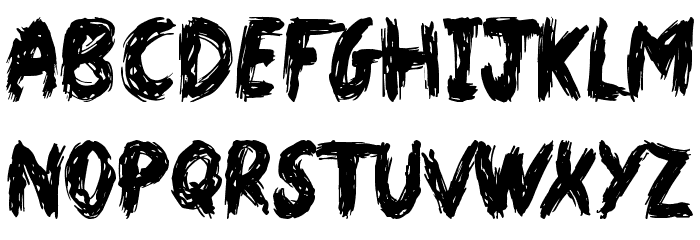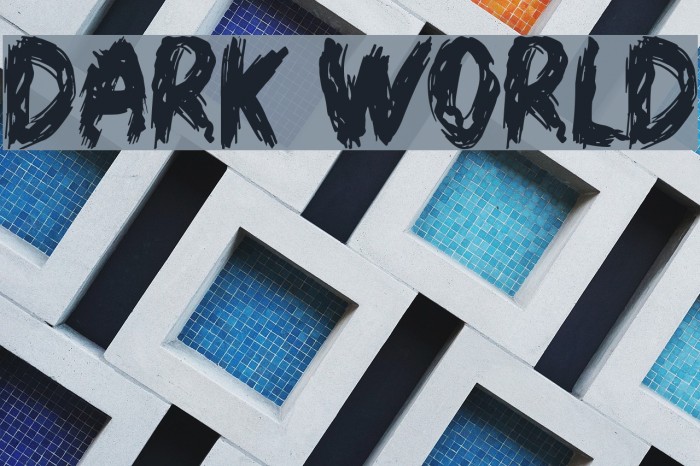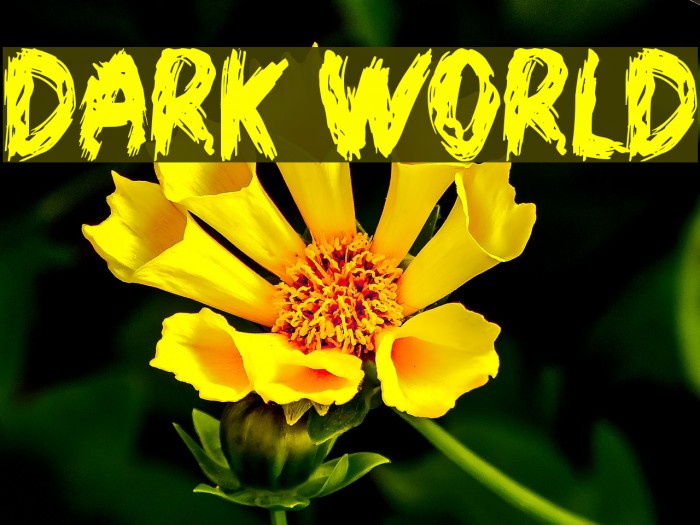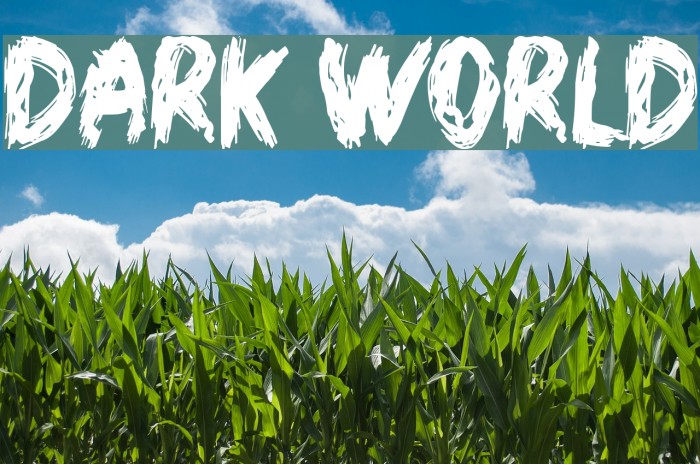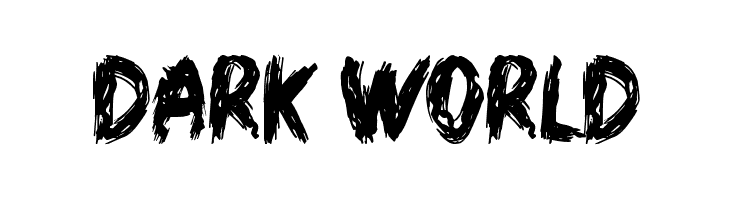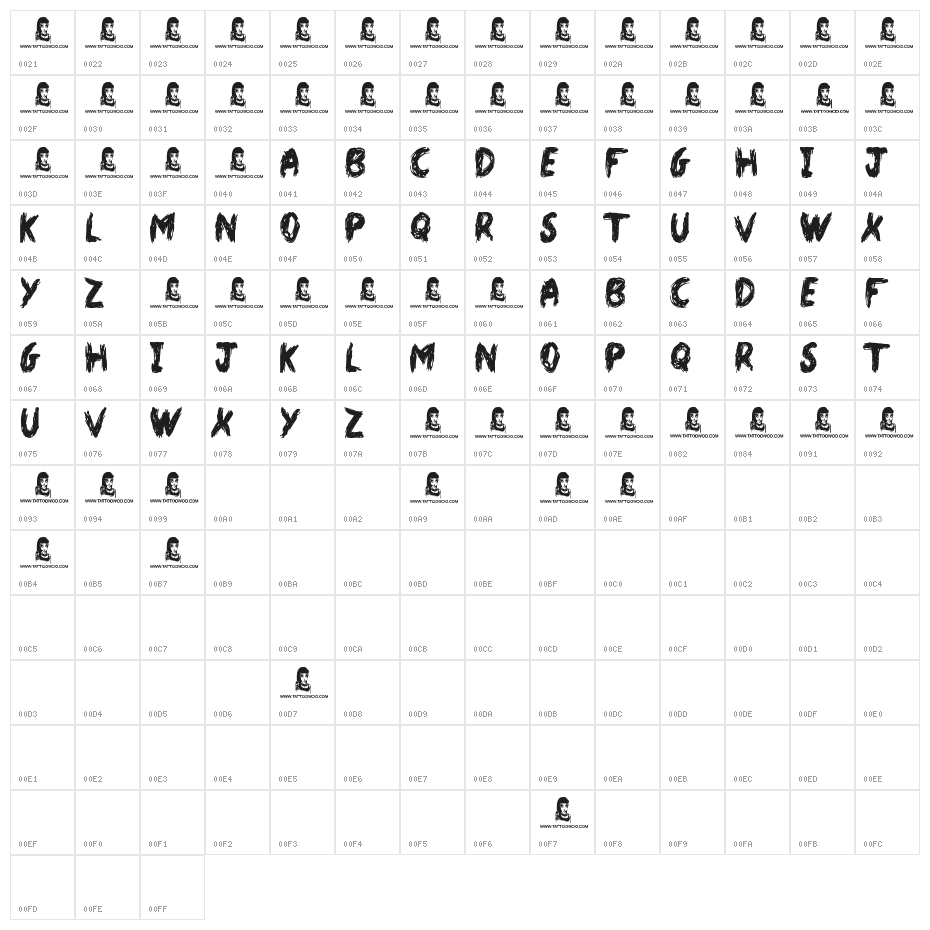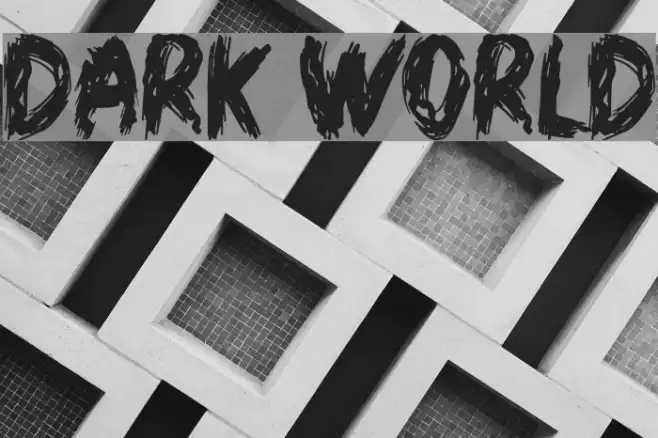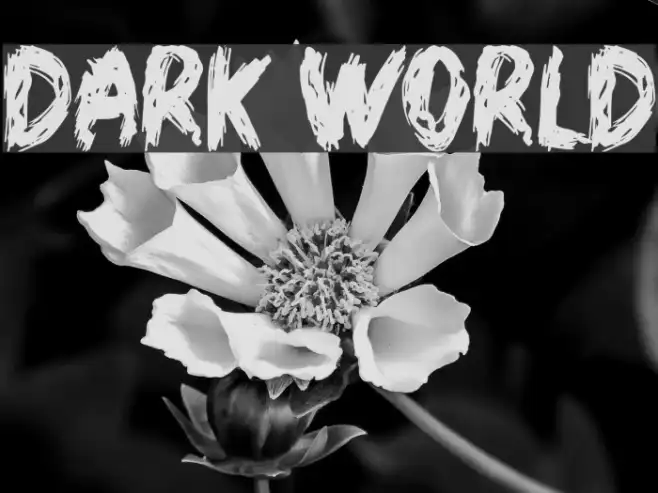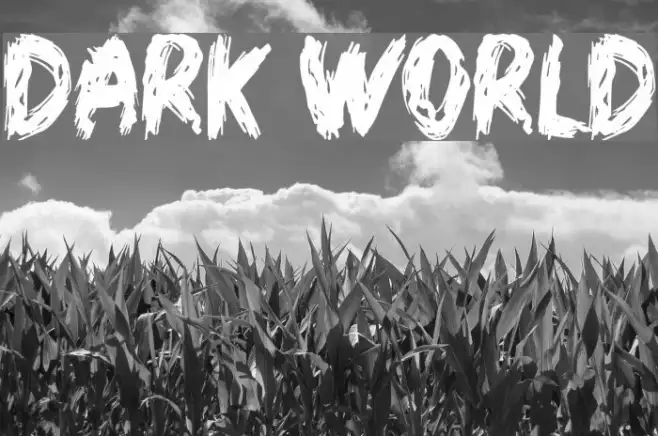
Dark World Font
This font features a bold, distressed style with a hand-drawn appearance. The letters are characterized by rough, uneven edges and a brush-like texture, giving it a raw and edgy feel. The uppercase and lowercase letters maintain a consistent style, with each character appearing as if it has been painted with a thick brush. The numbers and special characters follow the same design, ensuring uniformity across all elements. This font's unique and striking appearance makes it ideal for projects that require a strong visual impact.
A bold, distressed font with a hand-drawn, brush-like texture.
- Proposed Projects: Ideal for horror-themed designs, album covers, posters, and edgy branding projects.
- Overall Style: Edgy, Raw, Artistic